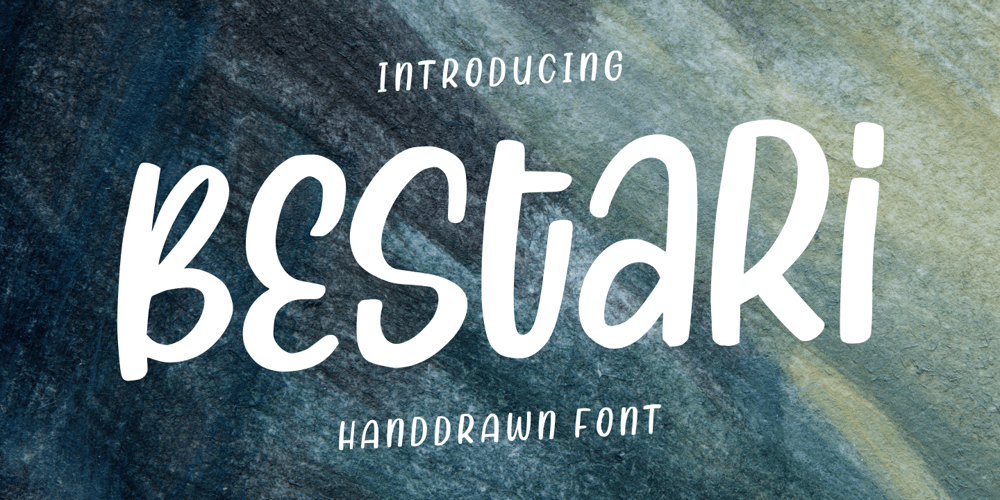
Bestari
Bestari font
Bestari Font Family was designed by Good Java and published by Good Java Studio. Bestari contains 1 styles and family package options. Bestari is the perfect font for all your classical and minimalism designs. The main font file is equipped with ordinary characters. Everything is made with the natural handdrawing. So you can be sure they will work well together!It is suitable for you to use in making t-shirt design, quote, label, packaging, logo type, or long writing. Because we have compiled kerning and matrices that are tailored to your needs.